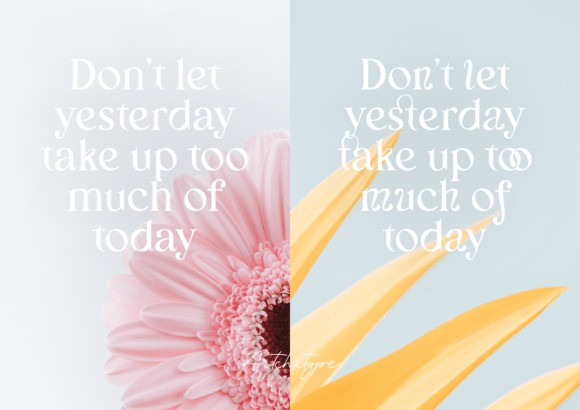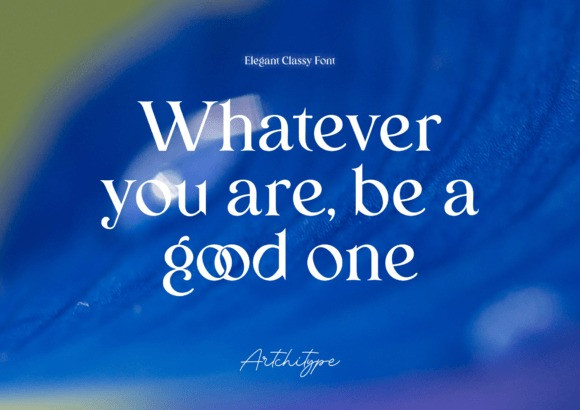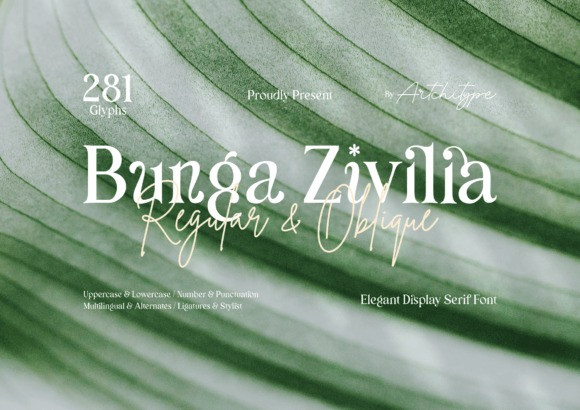
Bunga Zivilia Font
Bunga Zivilia Font is a stylish Font Style. This beautiful script font offers your personal touch to your latest art project with an elegant, classy, and modern look.